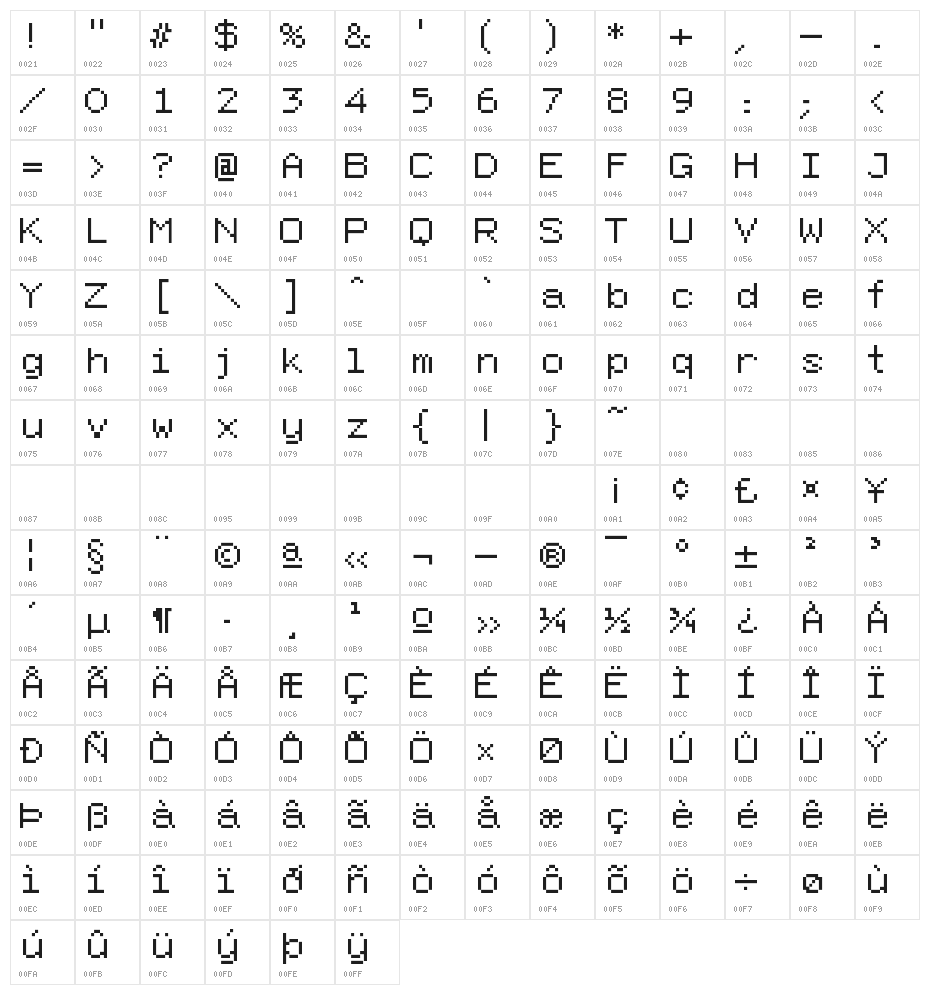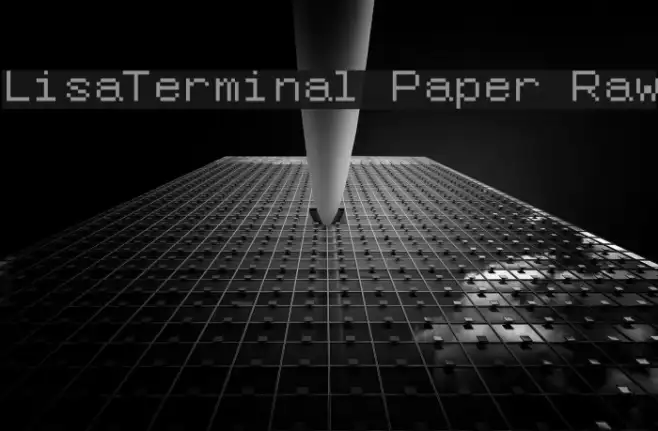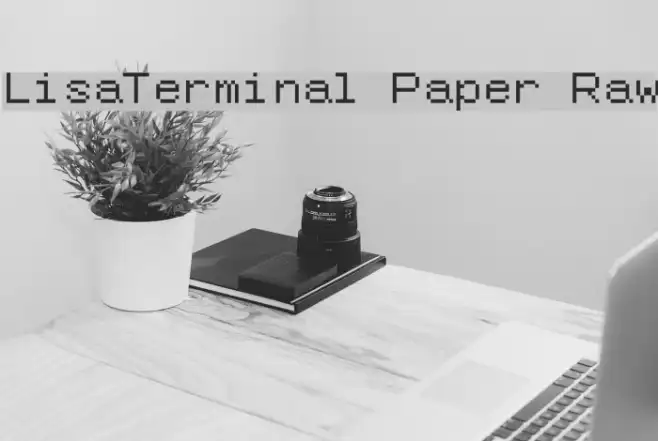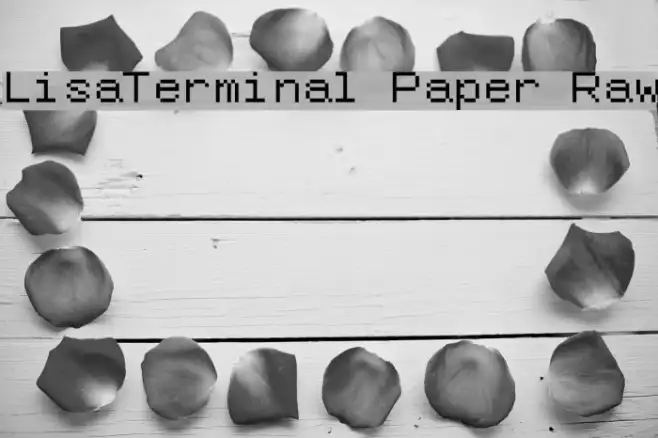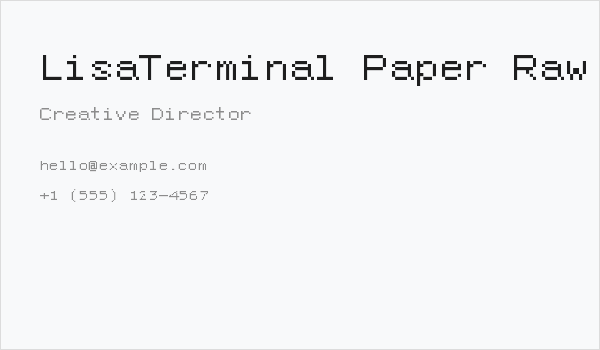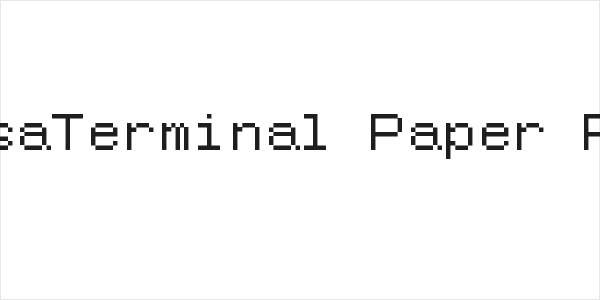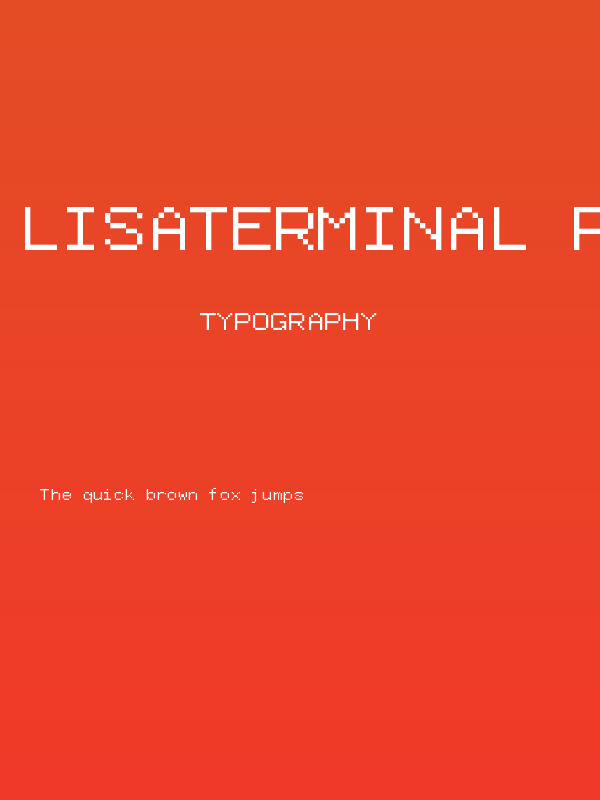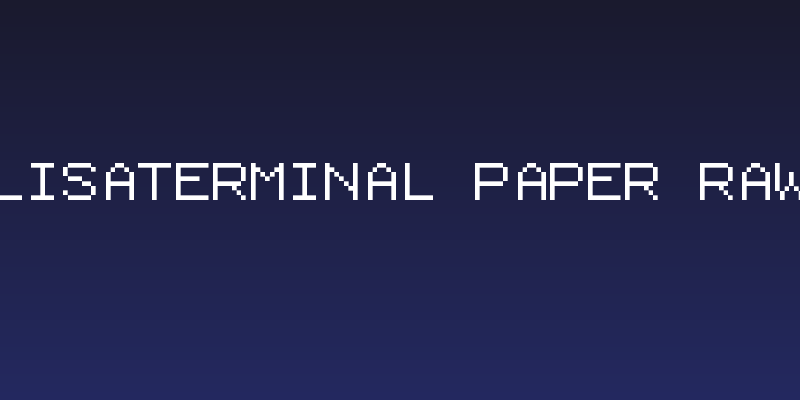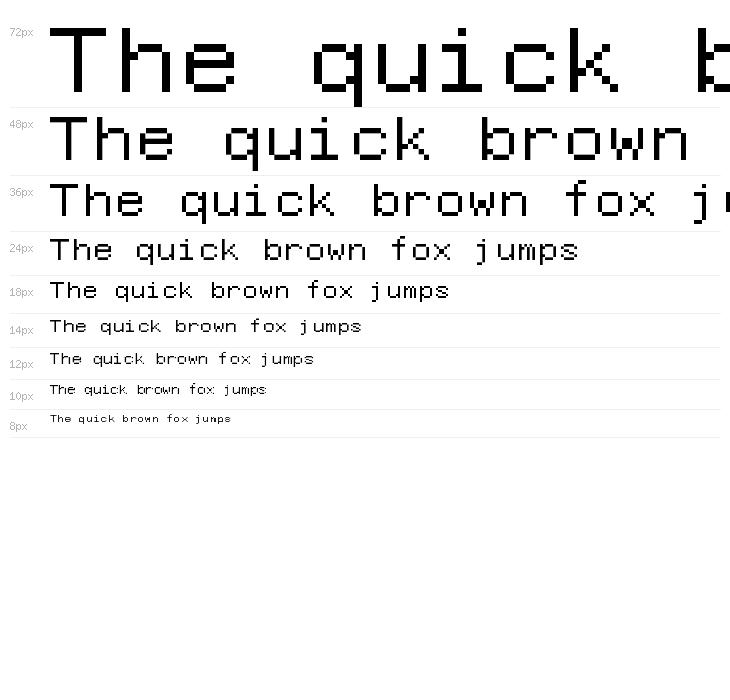
LisaTerminal Paper Raw Font
LisaTerminal Paper Raw Description
This font is a monospaced typeface characterized by its pixelated, blocky appearance, reminiscent of early computer terminal displays. Each character is uniformly spaced, contributing to a clean and organized look. The design is straightforward, with minimal curves and a focus on right angles, giving it a distinctly digital feel. The uppercase and lowercase letters maintain a consistent height, while the numerals and special characters are crafted with the same pixelated precision. This font is ideal for creating a retro or tech-inspired aesthetic, capturing the essence of vintage computing.
Overall StyleVintage
Use CaseHeadlines, Coding, Digital Art
Proposed ProjectsIdeal for retro-themed designs, coding environments, tech-inspired graphics, and digital art projects.